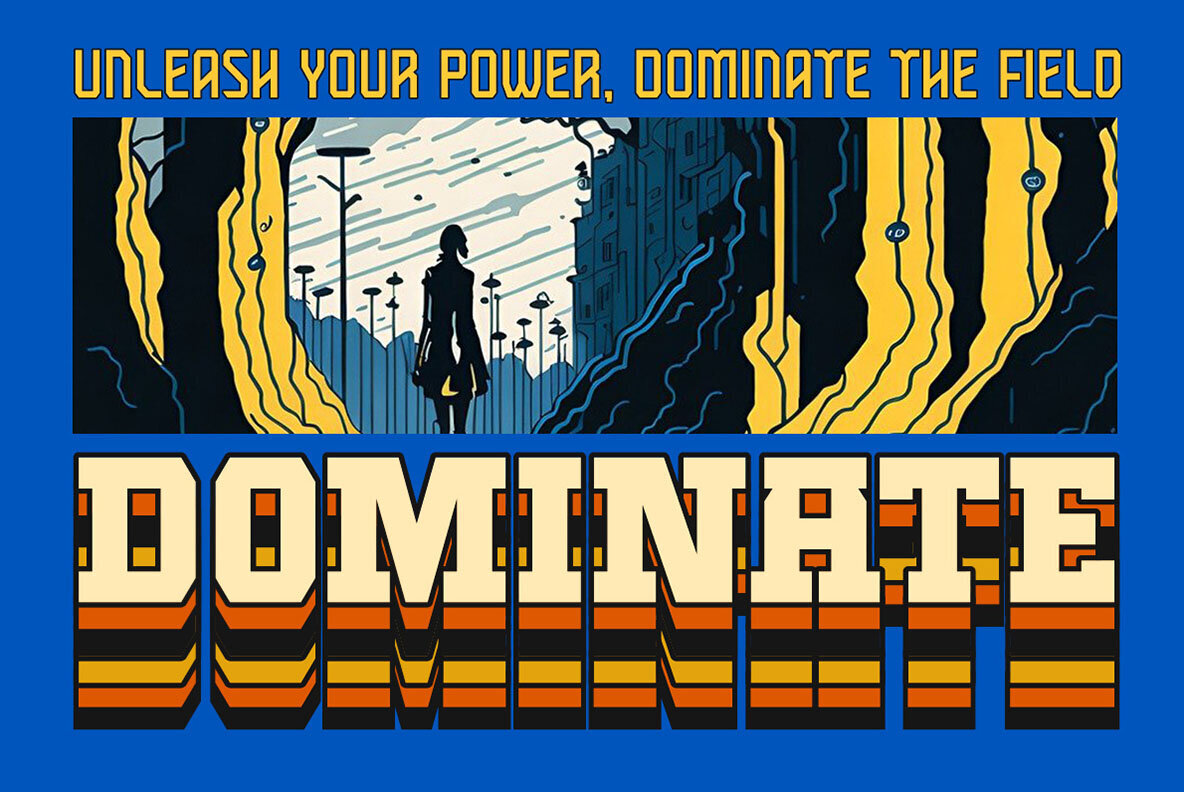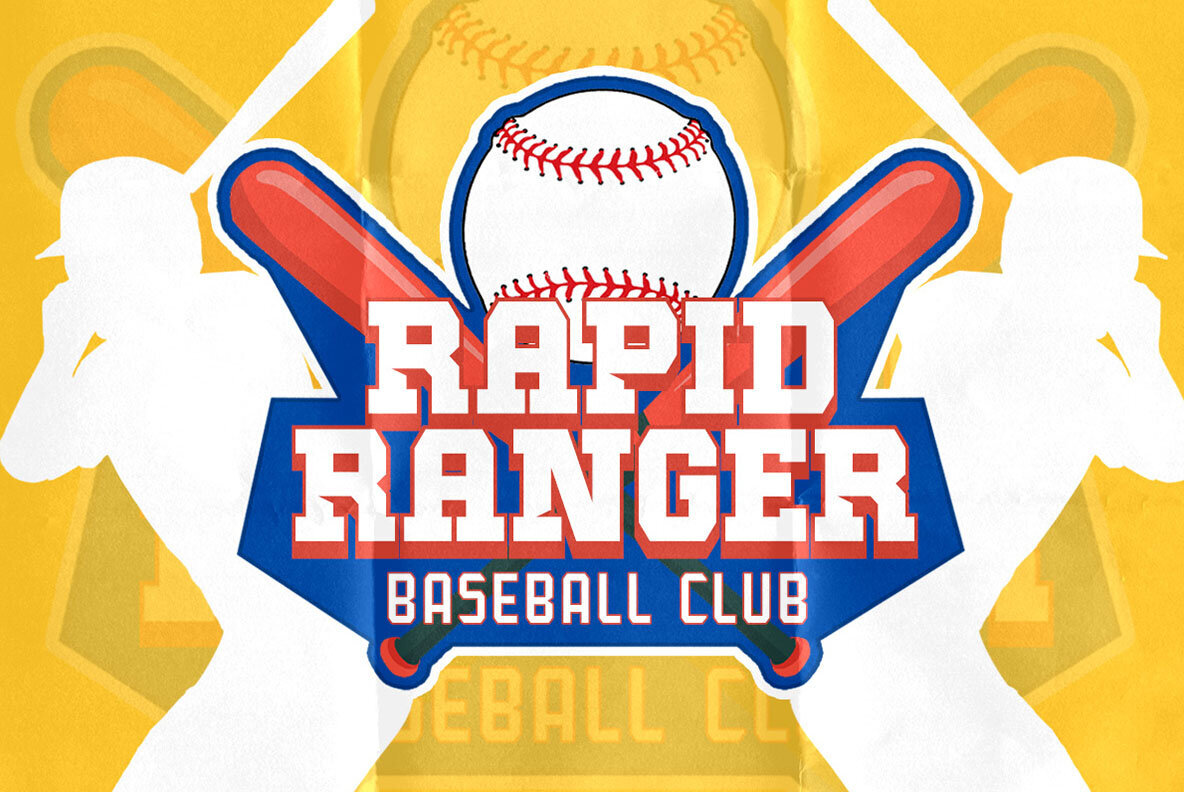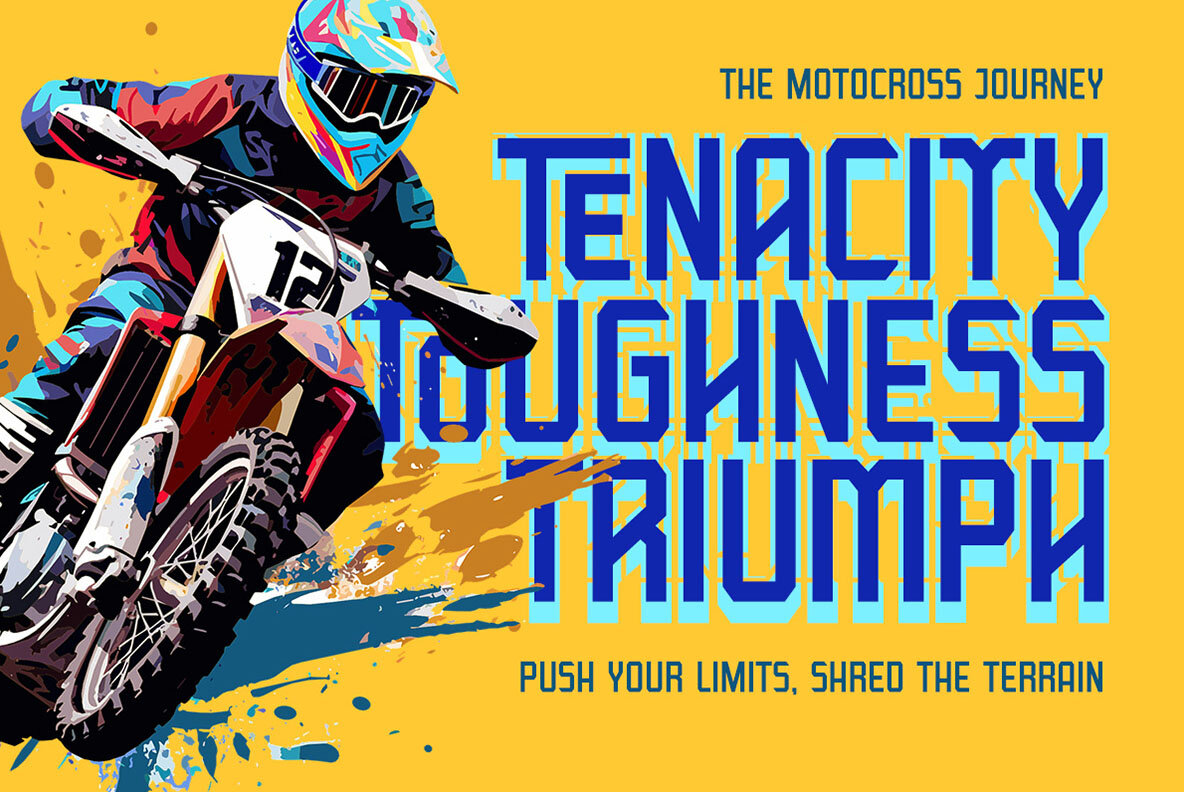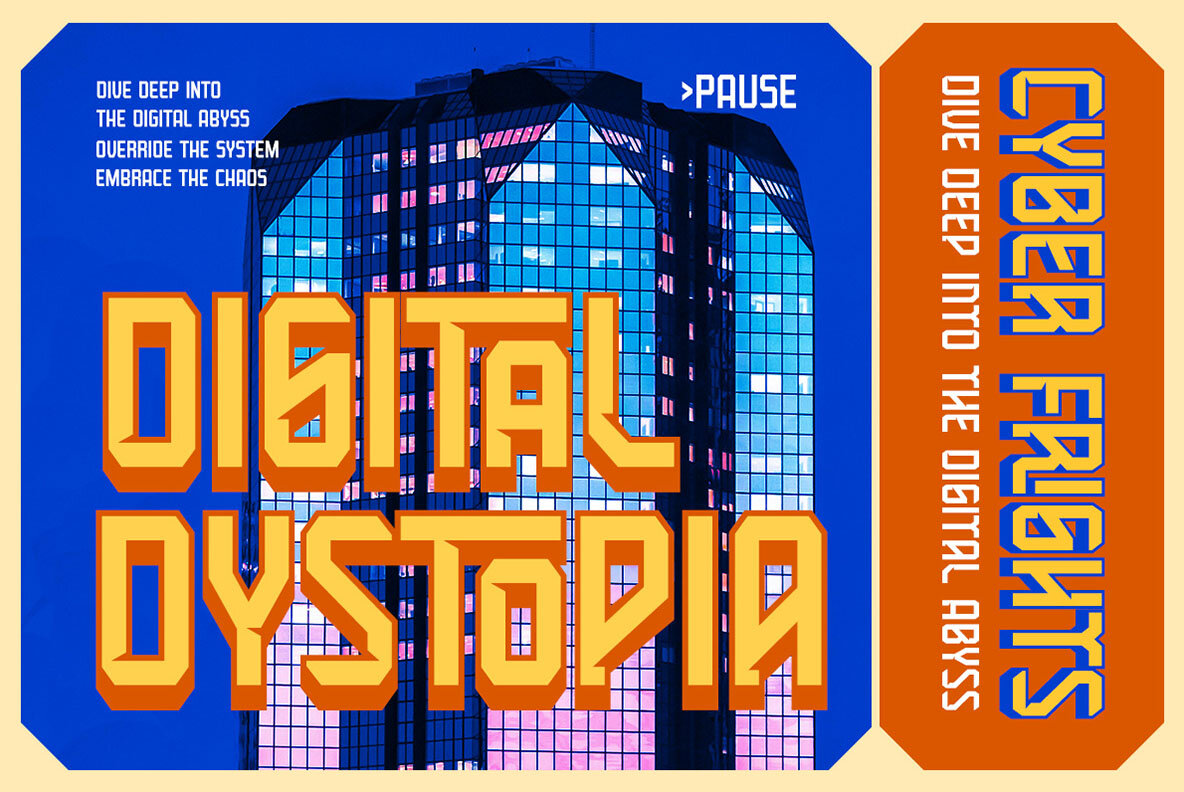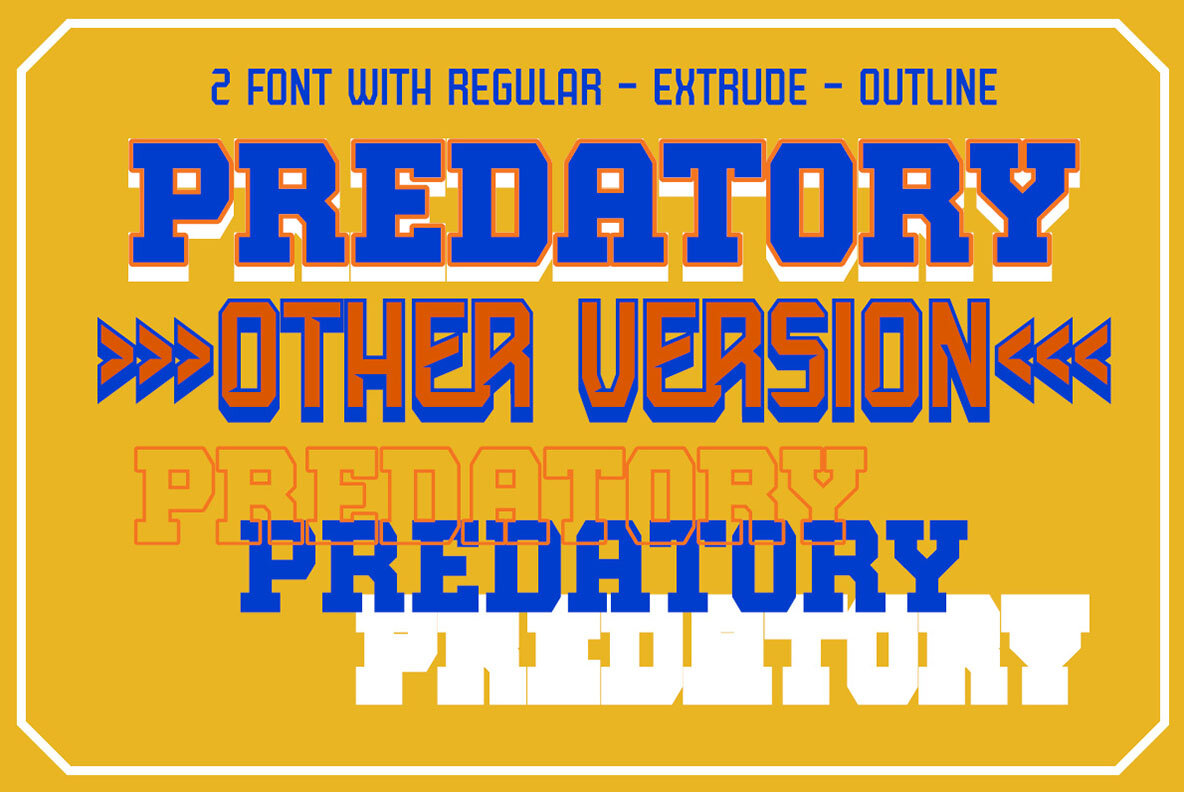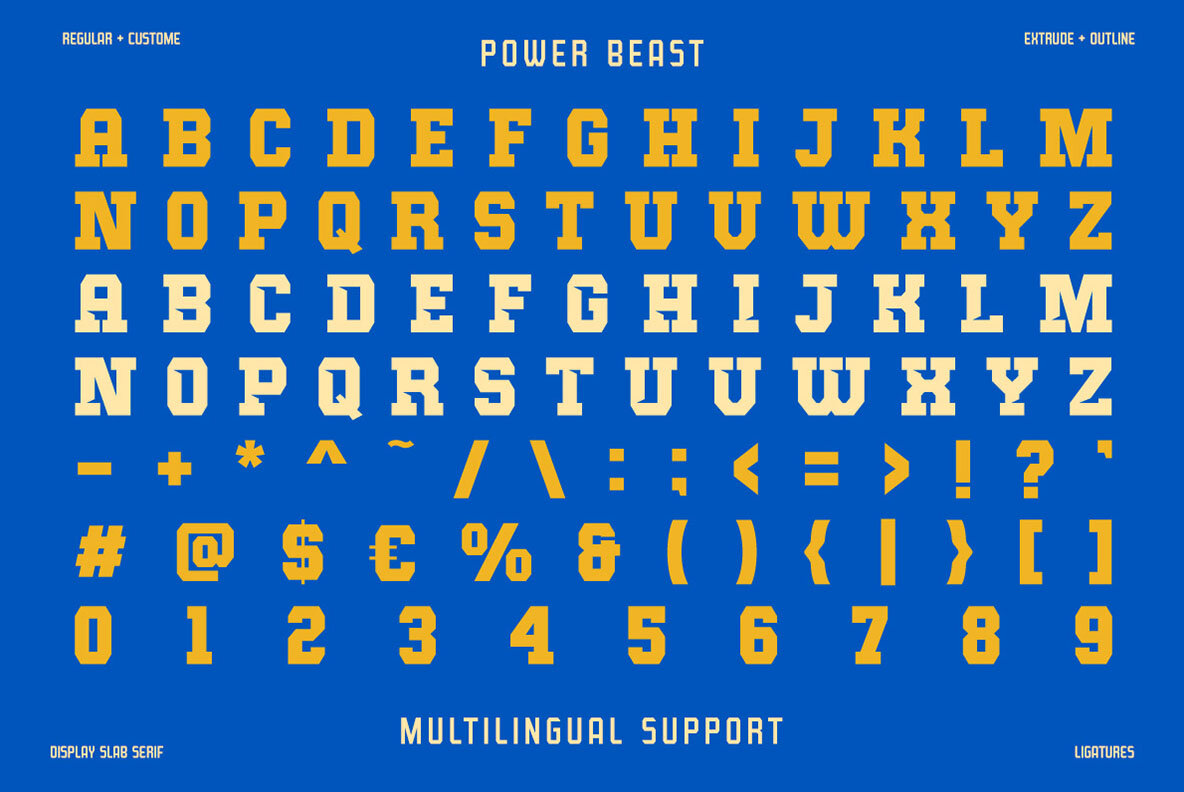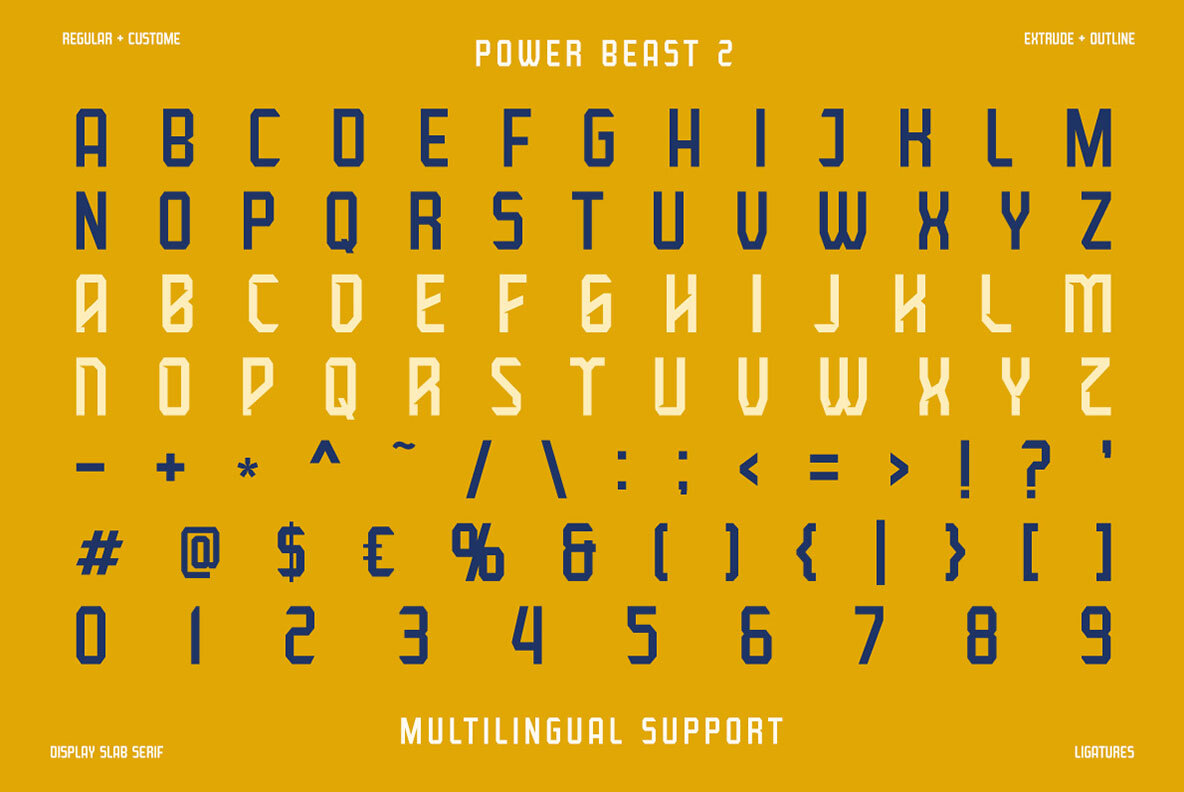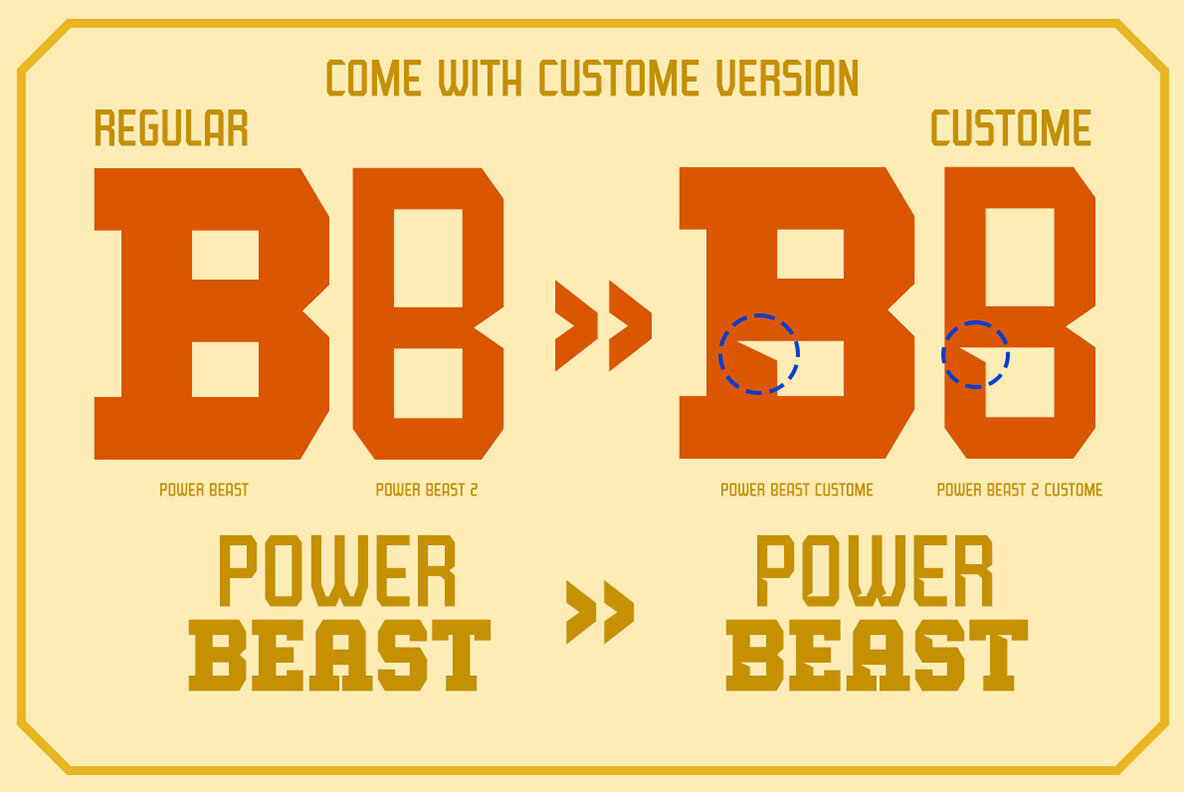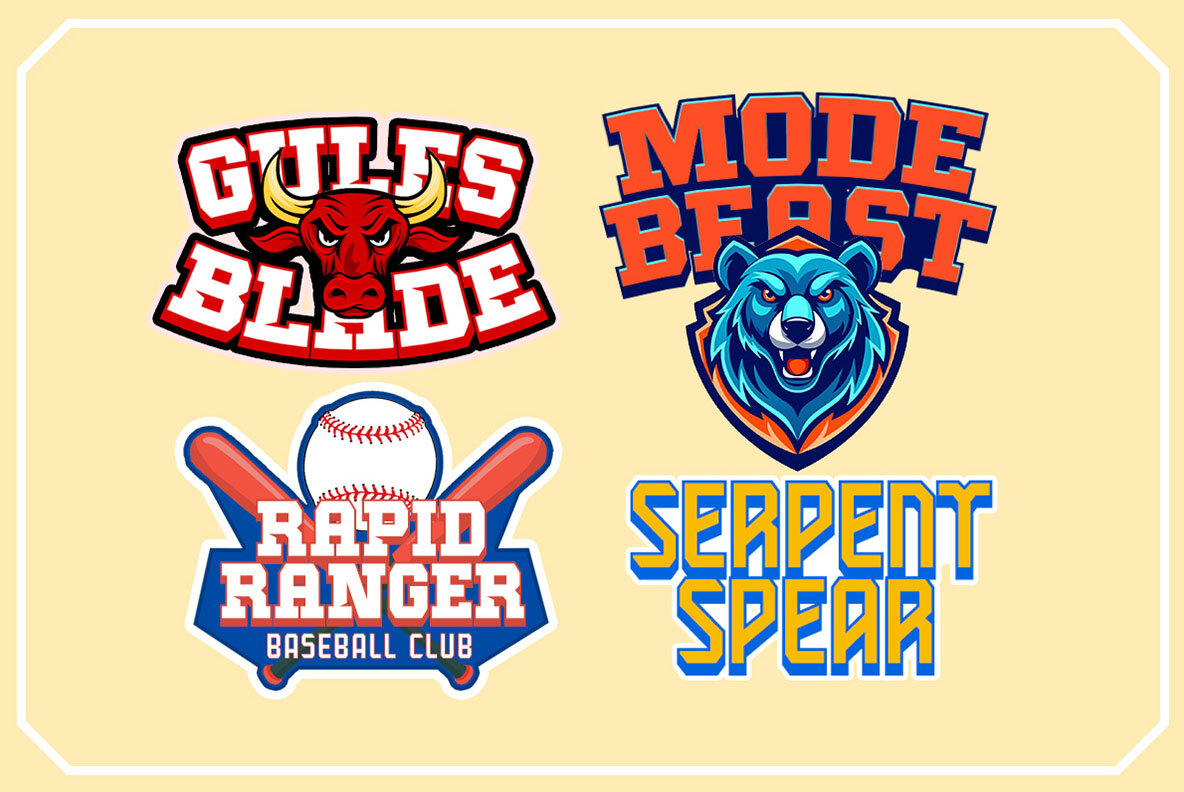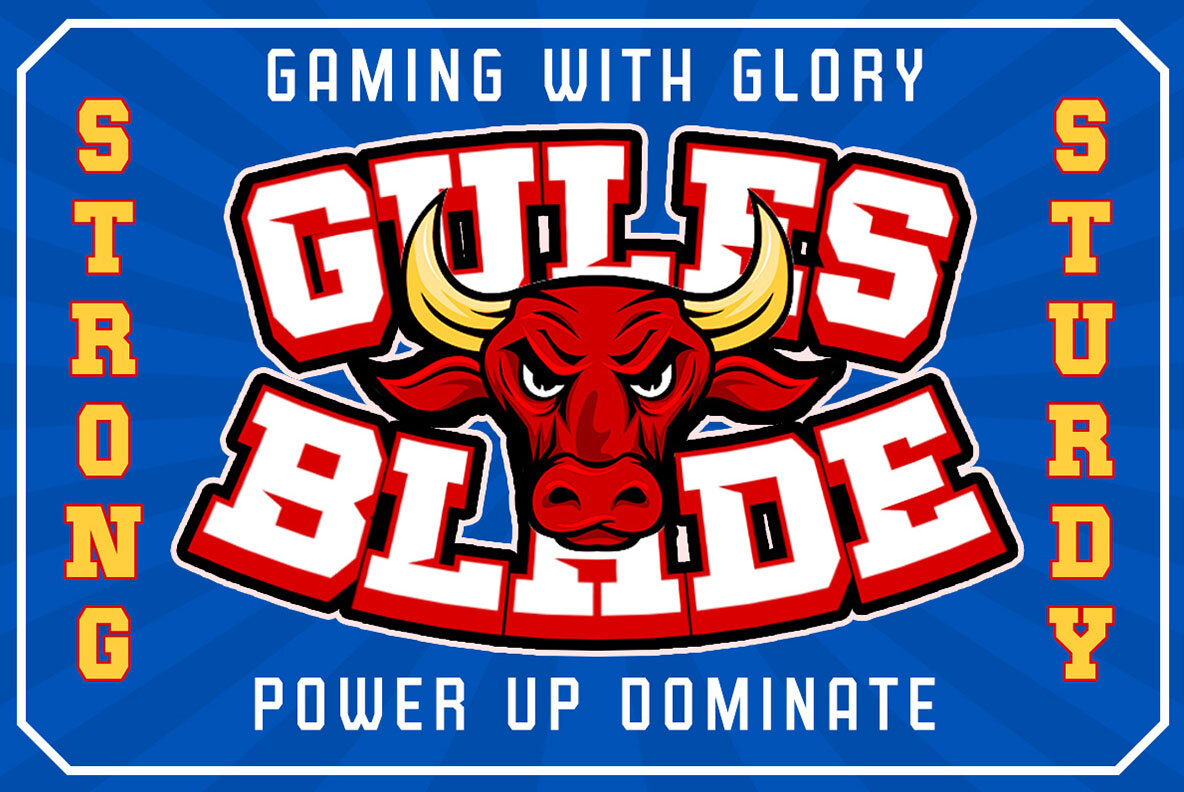
Power Beast Font
Power Beast is a modern typeface characterized by its heavy sans-serif style and geometric structure. This font emanates a robust, impactful presence, making it ideal for projects where strength and modernity are key.Power Beast: Geometric Sans-Serif with Bold Edge